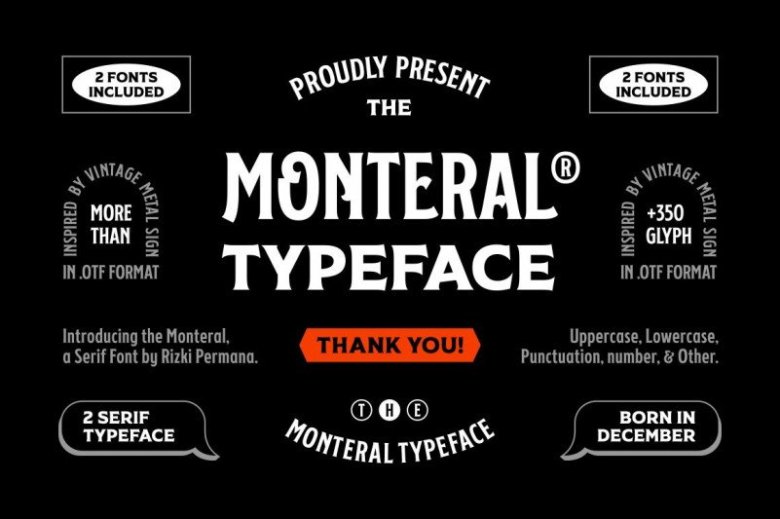
Say Hello Guy’s. Thank you for looking FF Monteral Font. It’s made in strong and dynamic label style. It’s adds timeless beauty, heavenly curves and a classic appearance to any project. FF Monteral Serif is a serif typeface inspired by the industrial revolution in manufacturing, transportation, and social structures, etc.
It’s comes in 2 Display Face. Ideal for product names, packages, labels, and everything with specific characteristics of past times. t is suitable for quote, clothing design, vintage logo, label, poster, packaging design and other designs.